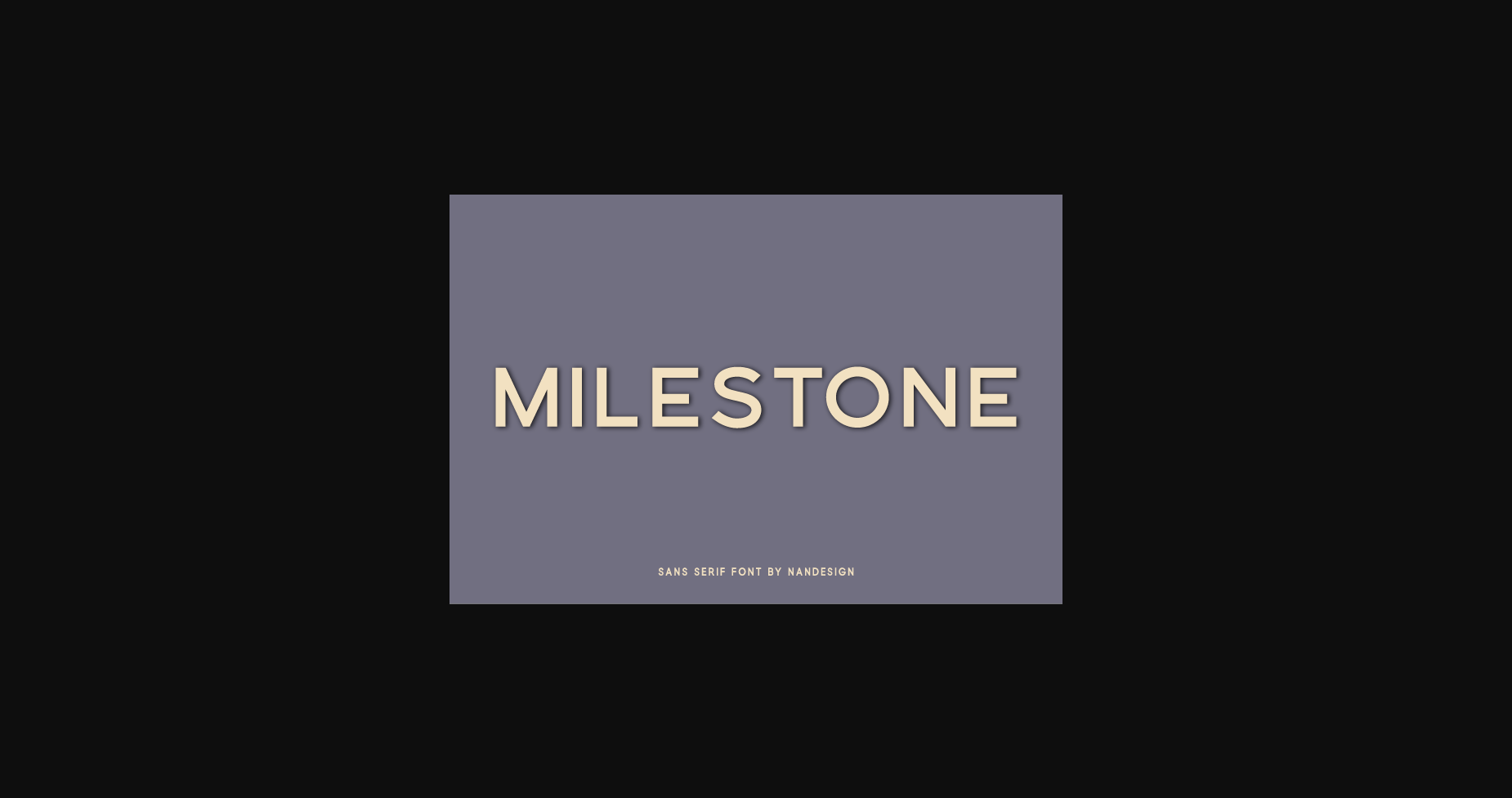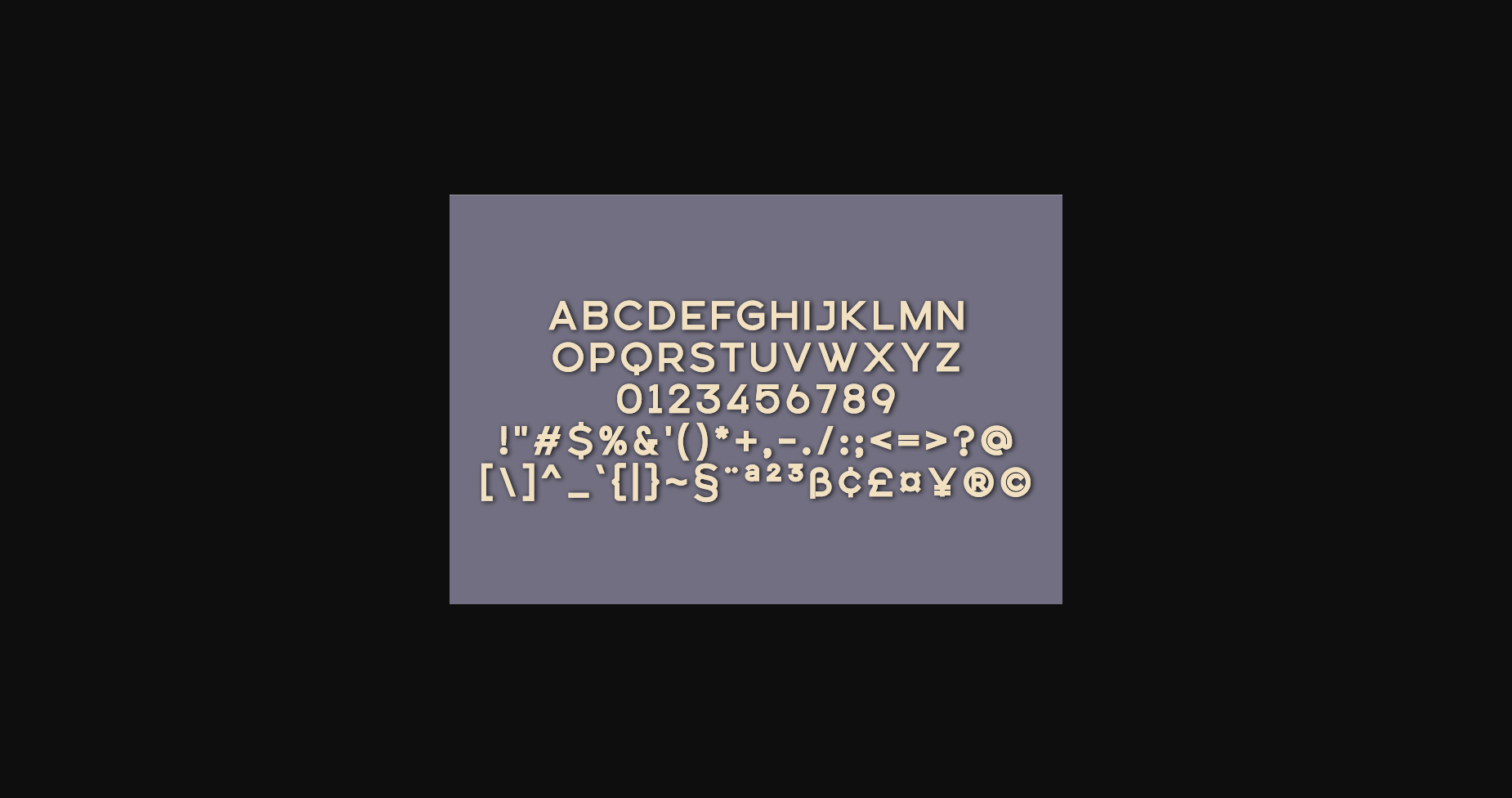
About Milestone Font
Milestone is a clean, slim and simple sans serif font.
It is perfect for product packaging, branding project, magazine covers, social media, wedding, or just used to express words above the background.